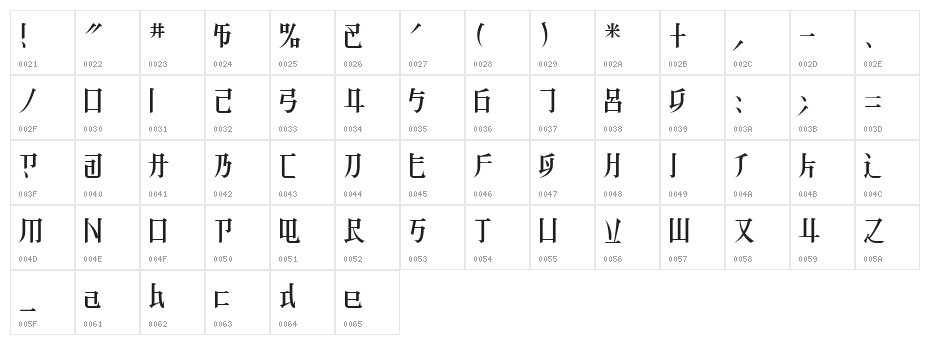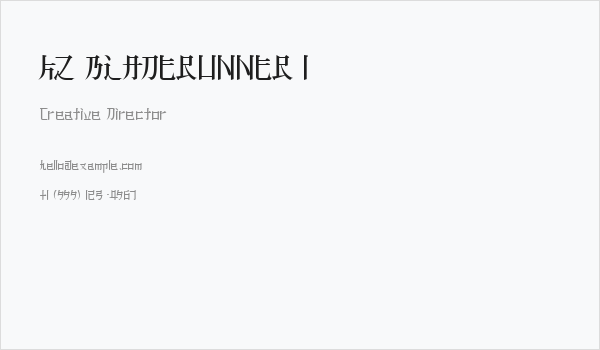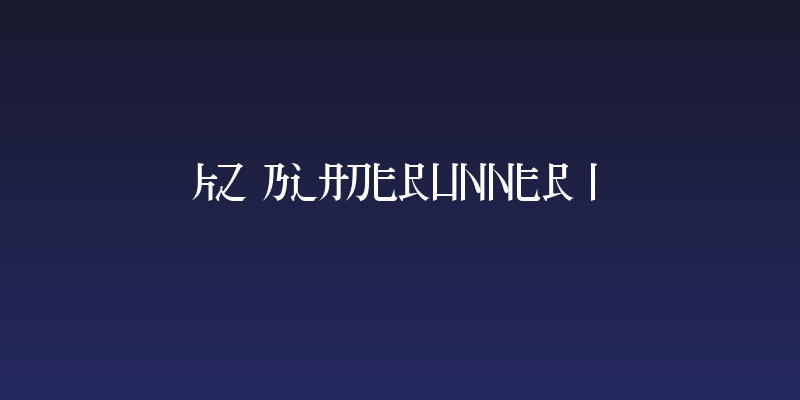
KZ BLADERUNNER 1 Font
KZ BLADERUNNER 1 Description
This font features a futuristic and angular design, reminiscent of science fiction aesthetics. The characters are bold and geometric, with sharp edges and a distinct, mechanical feel. The uppercase letters are particularly striking, with a strong presence and unique styling that sets them apart. Lowercase letters maintain the same angular theme, providing a cohesive look across the typeface. Numbers and special characters are designed to match the overall style, ensuring consistency throughout. The font's design is both modern and retro, capturing a sense of technological advancement while nodding to classic sci-fi influences.
| Overall Style | Futuristic, Sci-Fi |
| Proposed Projects | Ideal for sci-fi movie posters, video game titles, tech branding, and futuristic-themed designs. |